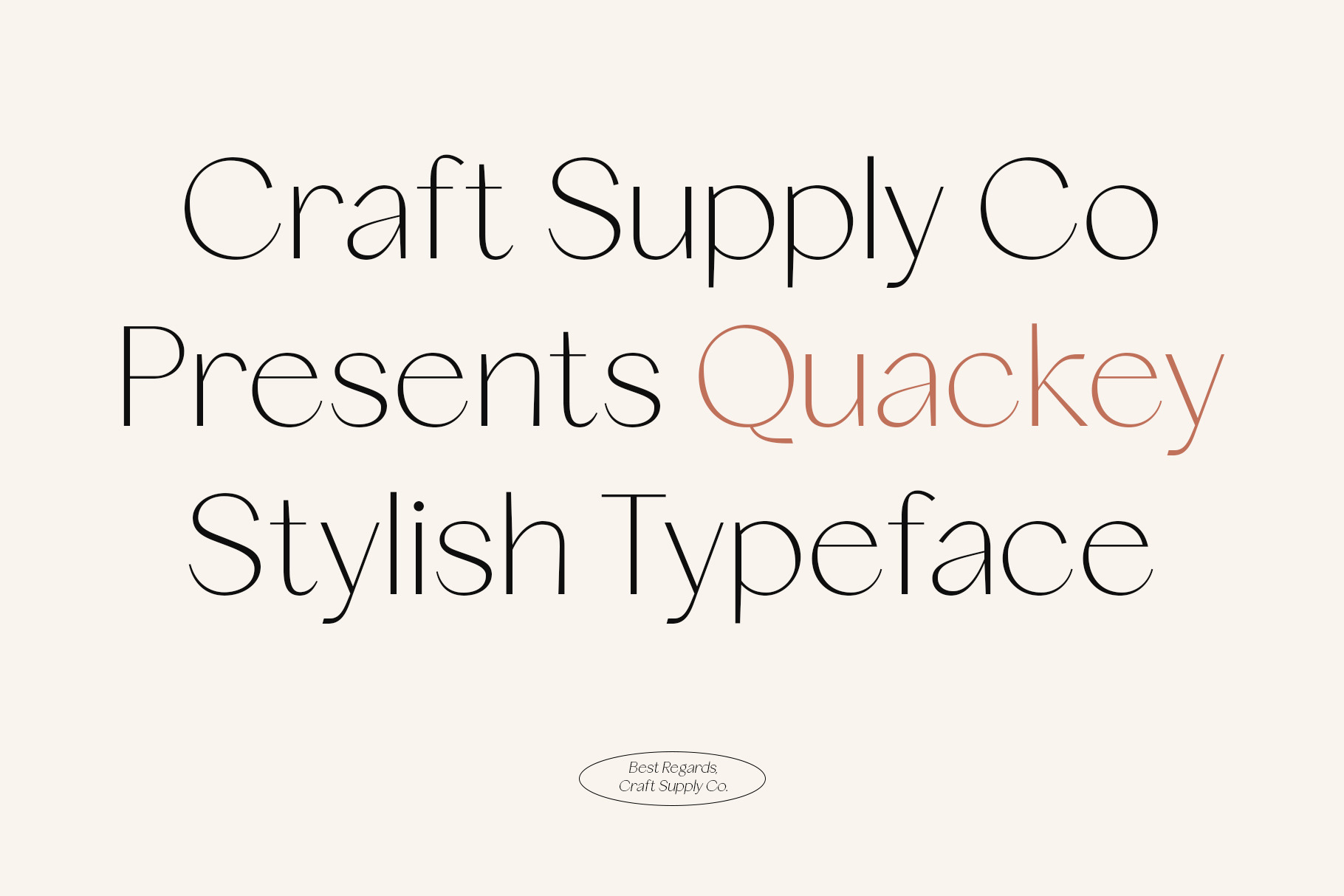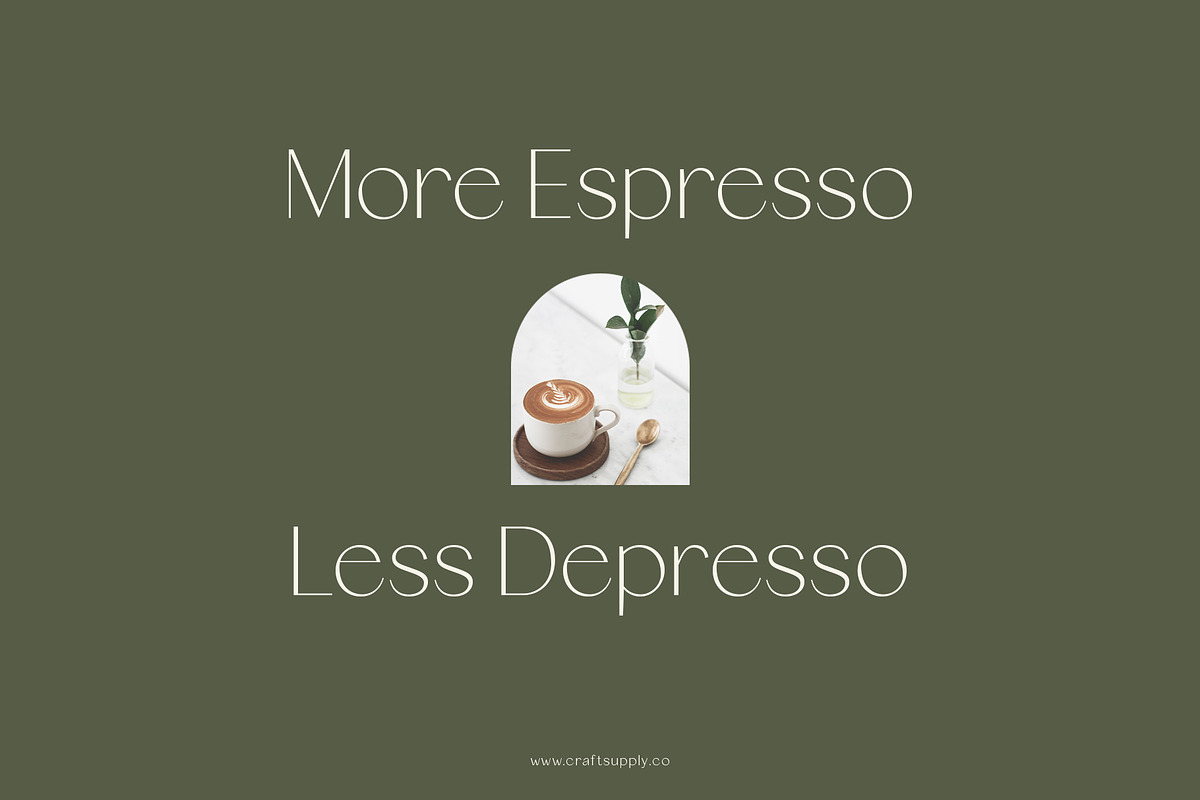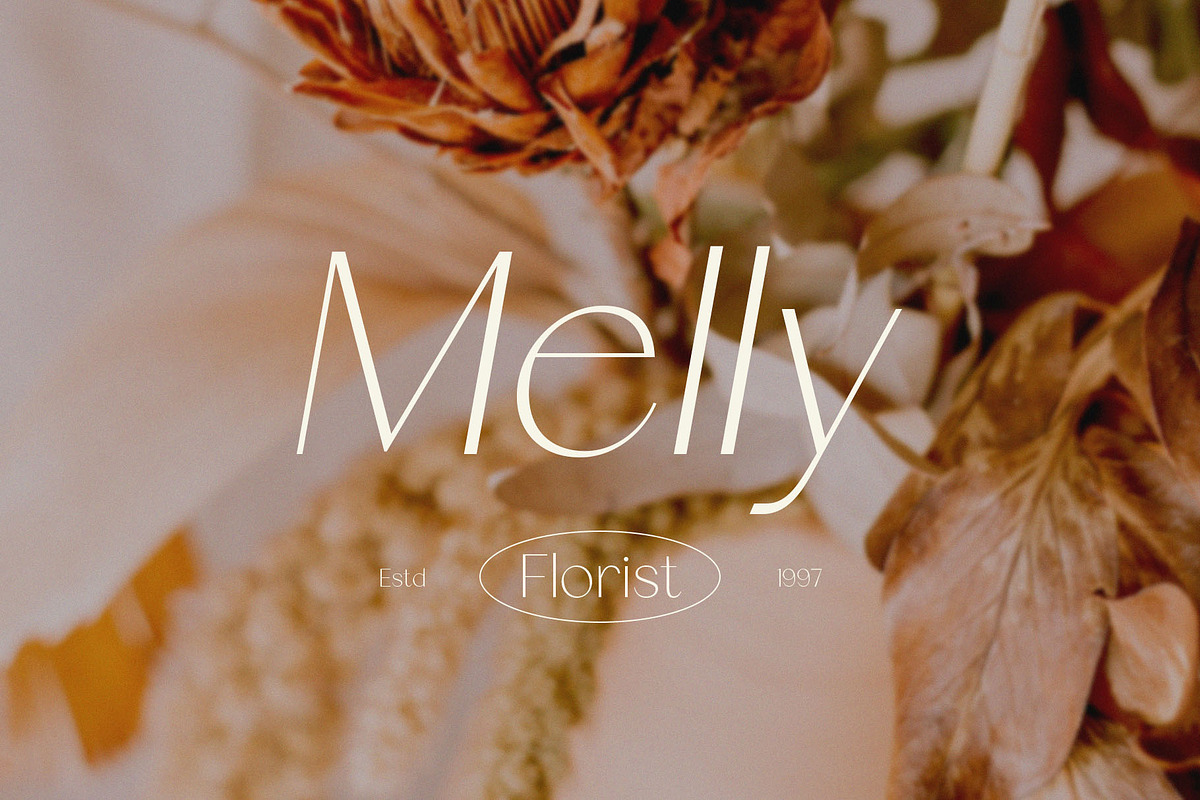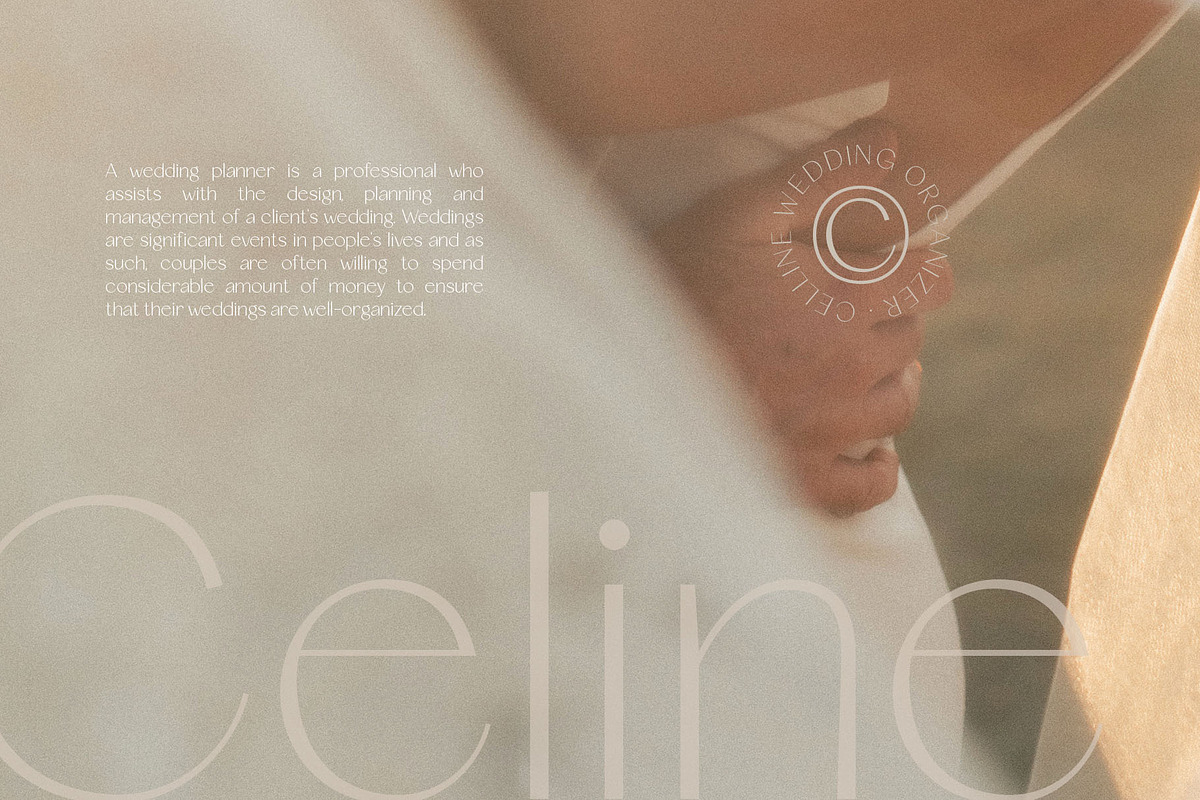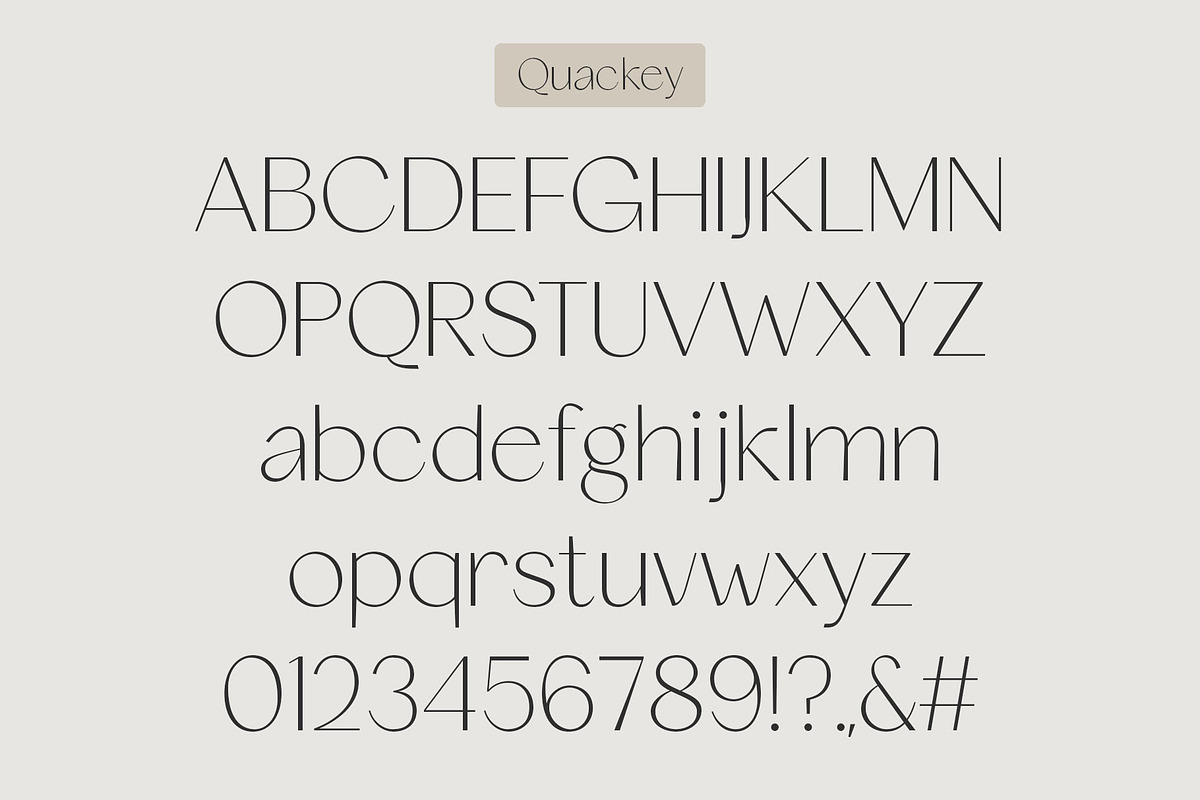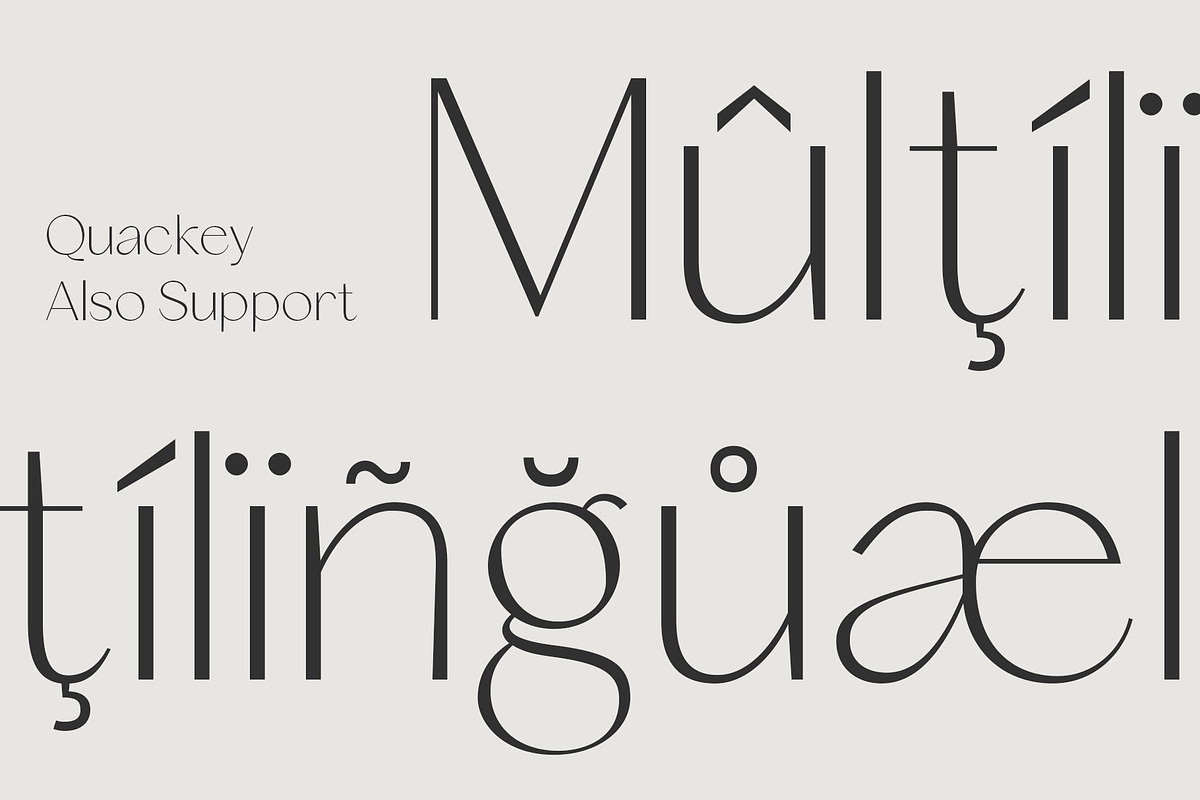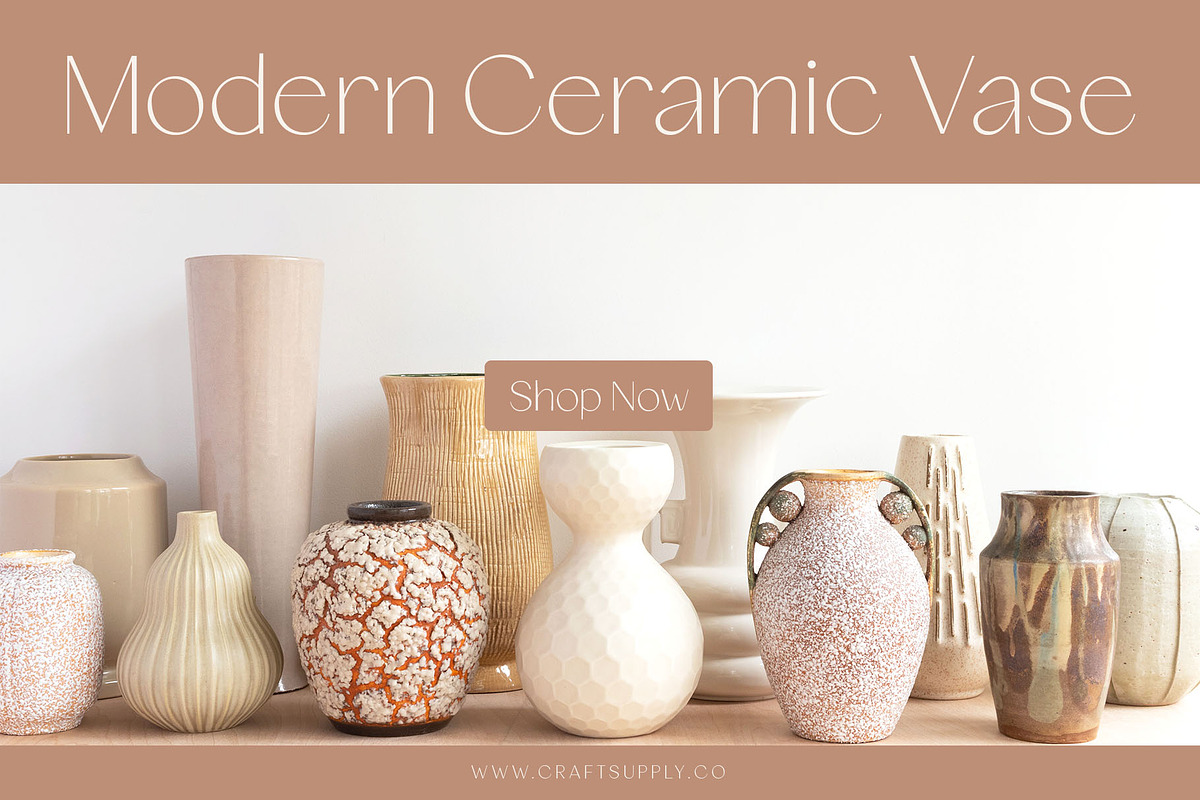
Quackey - Stylish Typeface
Introducing Quackey - Stylish Typeface.
Quackey - Stylish Typeface is an elegant low contrast sans serif. It can be used to create almost all types of design projects like print materials. Just use your imagination and your project will become more alive and look great than ever with this typeface.
You want to make a greeting card or a package design, or even a brand identity, craft design, any DIY project, book title, wedding font, pop vintage design, retro design or any purpose to make your art / design project look pretty and trendy? Feel free to play with this typeface!